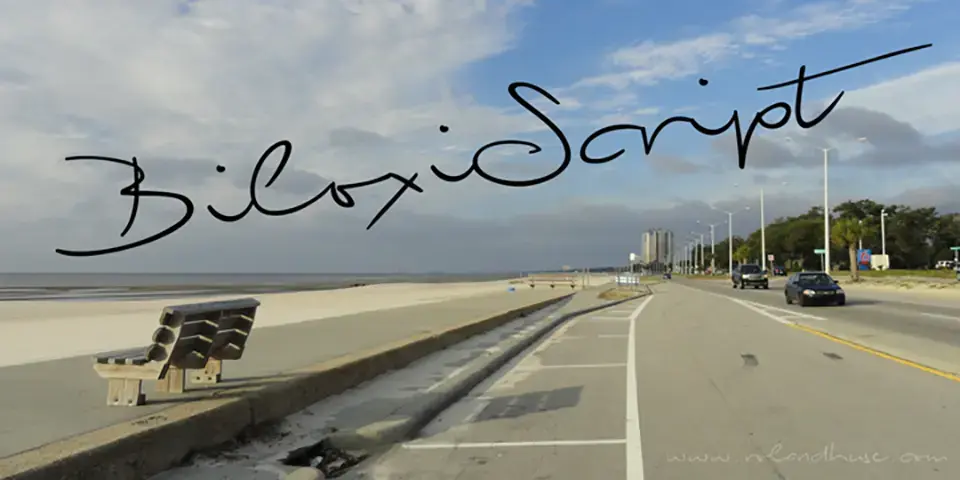
Biloxi Script Font
Biloxi Script is a relaxed handwritten script font featuring fluid, mono‑weight curves, natural connections and a friendly, feminine rhythm. Its smooth baseline and casual letterforms evoke personal penmanship, making it perfect for logo wordmarks, boutique branding, wedding invitations, social media posts, product packaging and eye‑catching poster titles. Use this script font whenever you need a warm, approachable handwritten feel without sacrificing legibility in modern digital and print layouts.